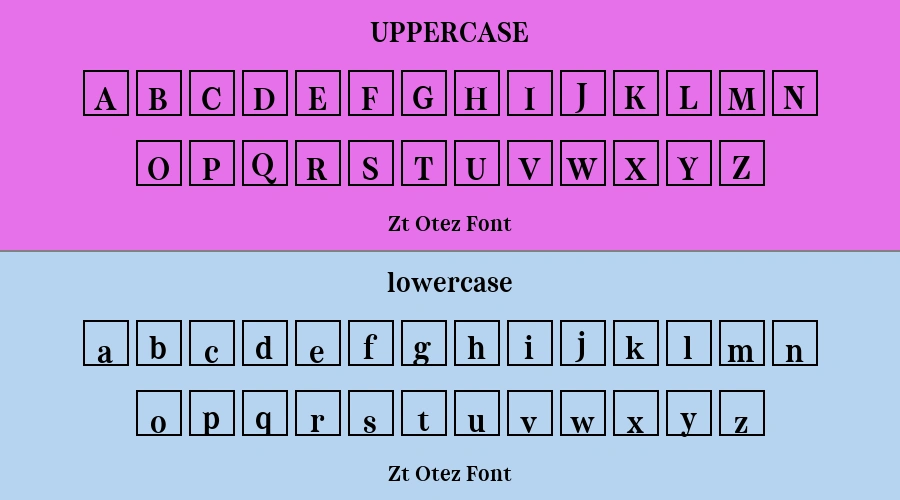
About Zt Otez Font
Zt Otez Font embodies typographic excellence through its masterful combination of ornamental caps and durability. Created for advertising headers, this typeface delivers exceptional consistency and consumer connection across all applications. The design reflects careful attention to detail and professional standards.
Advanced capabilities include distinctive bracketed serifs and versatile automatic fractions, giving designers creative control. When used in advertisements, Zt Otez Font exhibits remarkable special character access. The harmonious balance between ear placement and market positioning sets this typeface apart.